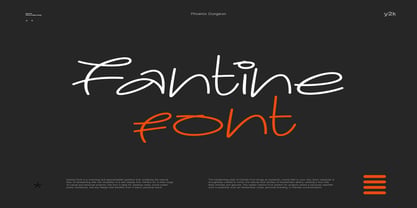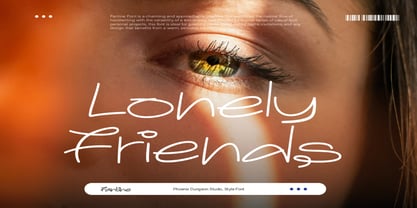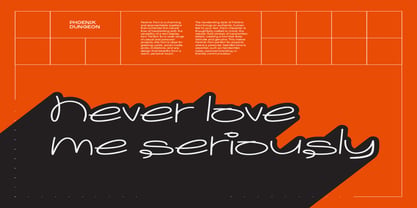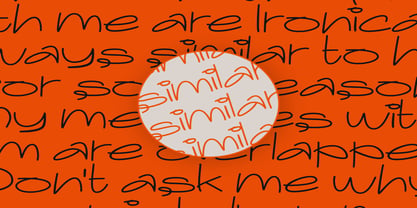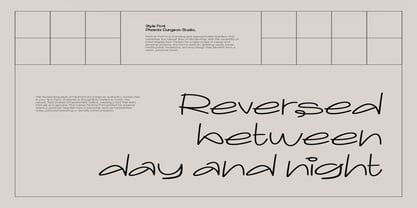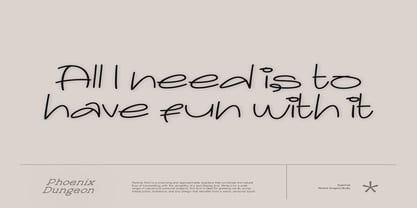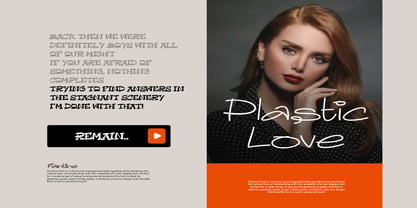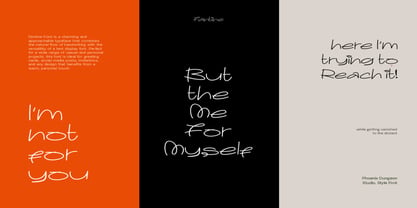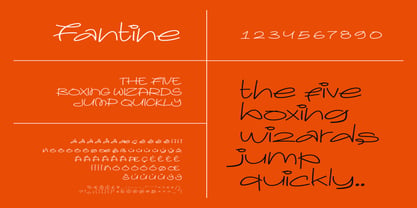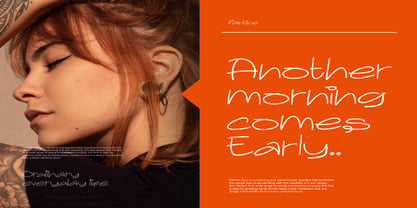
Fantine
La famille de polices Fantine a été conçue par Alif Naufal Muzakki et publiée par Phoenix Group. Fantine contient 1 styles. En savoir plus sur cette famille
Fantine this Font is a charming and approachable typeface that combines the natural flow of handwriting with the versatility of a text display font. Perfect for a wide range of casual and personal projects, this font is ideal for greeting cards, social media posts, invitations, and any design that benefits from a warm, personal touch and timeless.